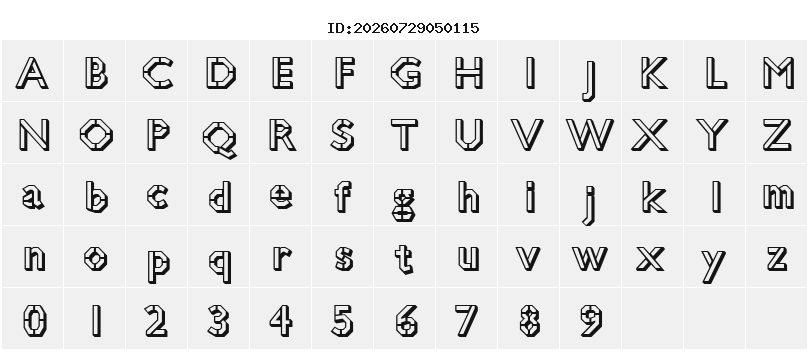
• Font Name: Jillican War 3D
• Designer: Ray Larabie
• Manufacturer: Typodermic
About Jillican War 3D.ttf
Jillican War 3D.ttf is a modern, elegant sans-serif font designed for ultimate readability and visual harmony. Perfect for branding, headlines, web design, and print materials.